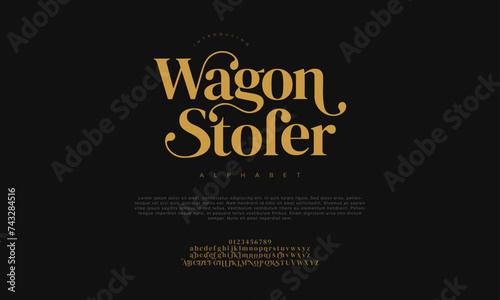
Wagonstoler premium luxury romadhon alphabet letters and numbers. Elegant wedding typography islamic ramadan serif font decorative vintage retro. Creative vector illustration